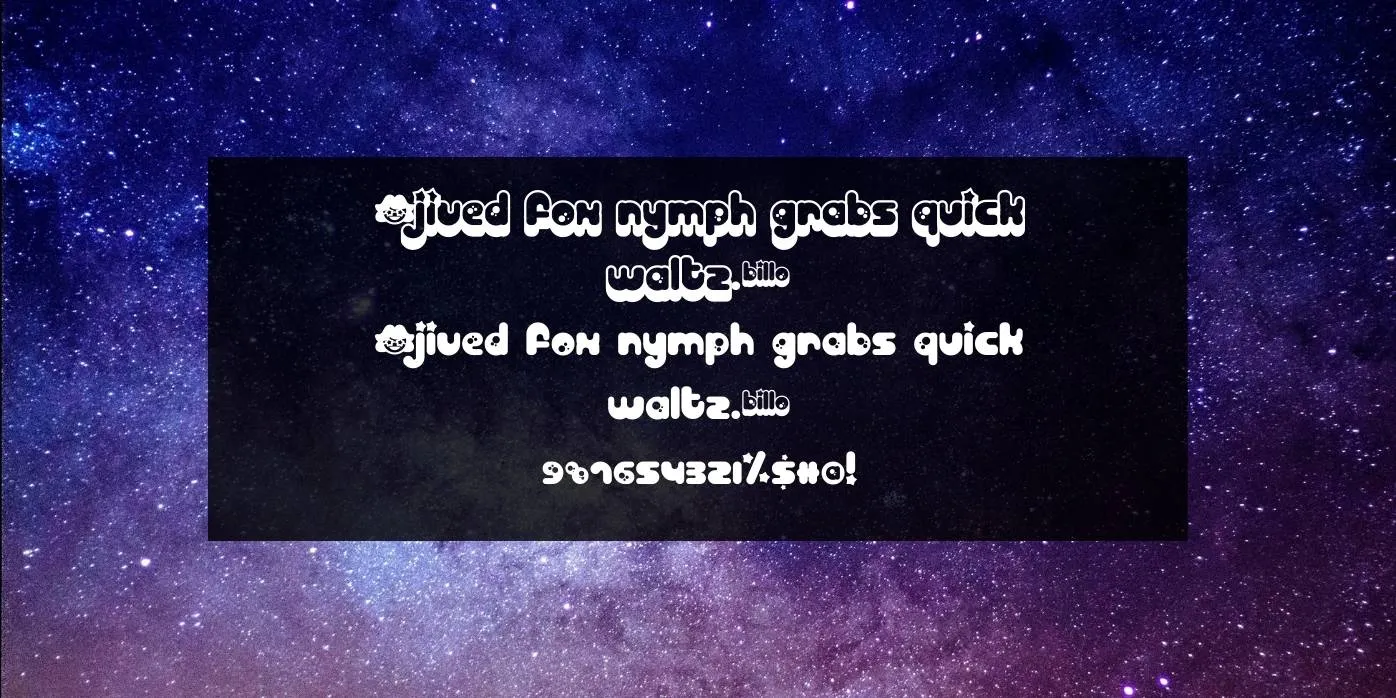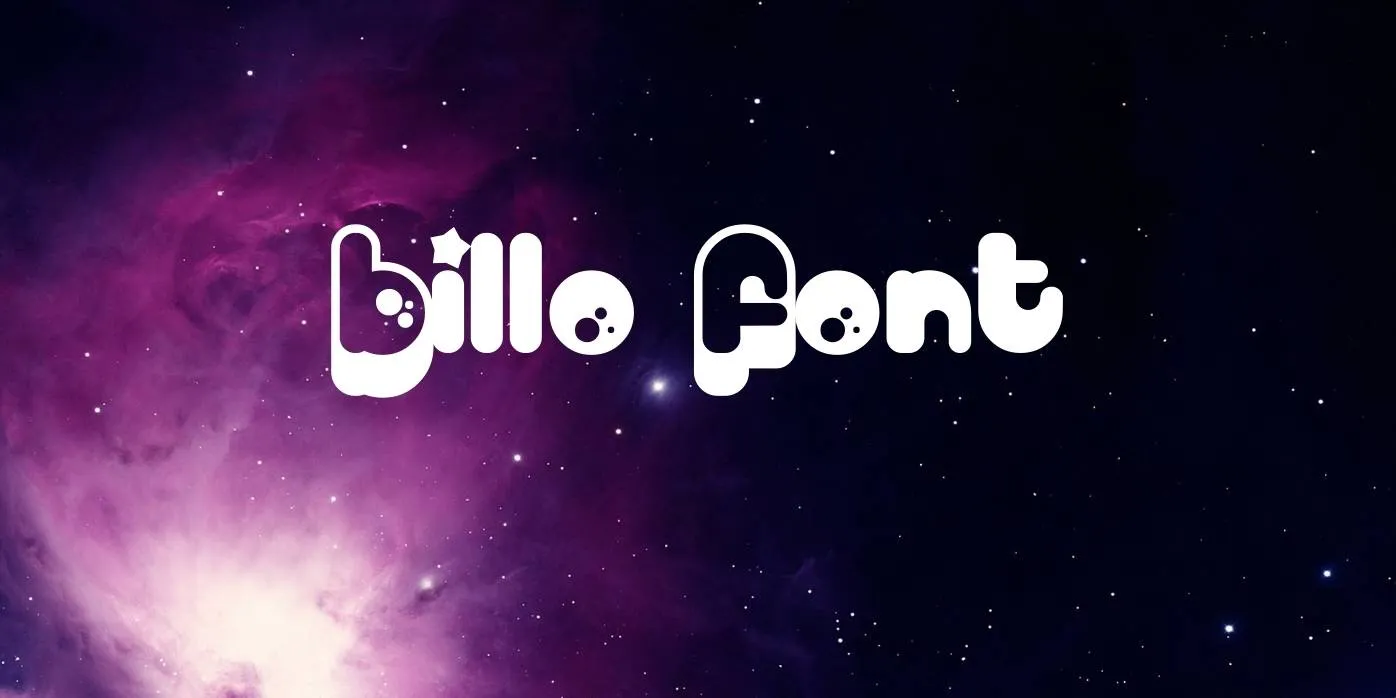
Billo Font
Today, we introduce a stylish typeface known as Billo Font. This typeface belongs to the fancy font family. This font was developed by Fontalicious. This font is designed in a very stylish way.
The design of this typeface is inspired by classic and vintage letters. This typeface is available in two styles including regular and italic. Both of these styles come with unique features. This font supports Latin, Cyrillic, and Greek languages.
You can use this font for various purposes like official documents, websites, newspapers, magazines, and many other places. Its copy and paste function is best for all textual designs. You can also use porkys font which is closest to this font family. If you are looking for a stylish font for your next project then you must consider Billo Font.